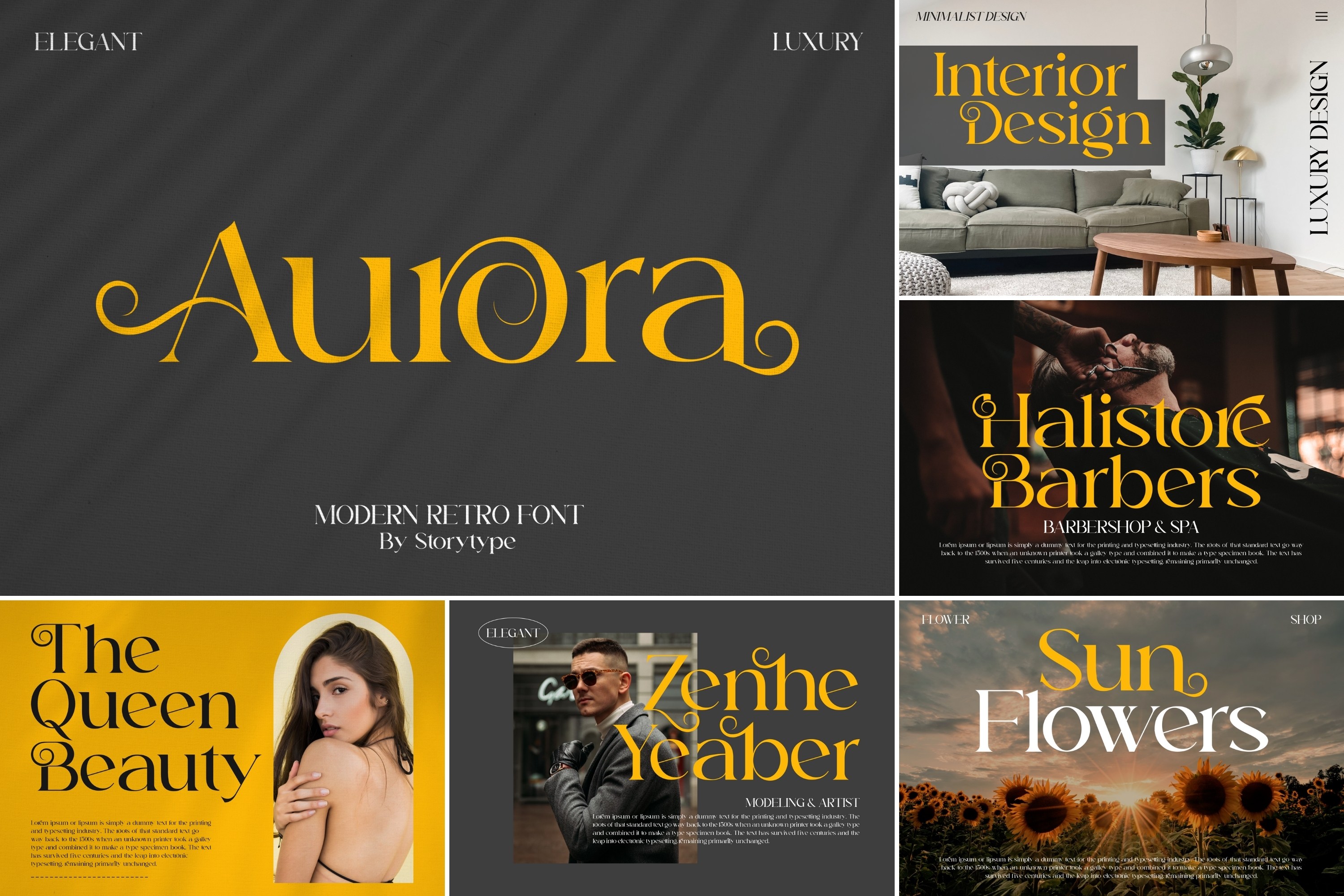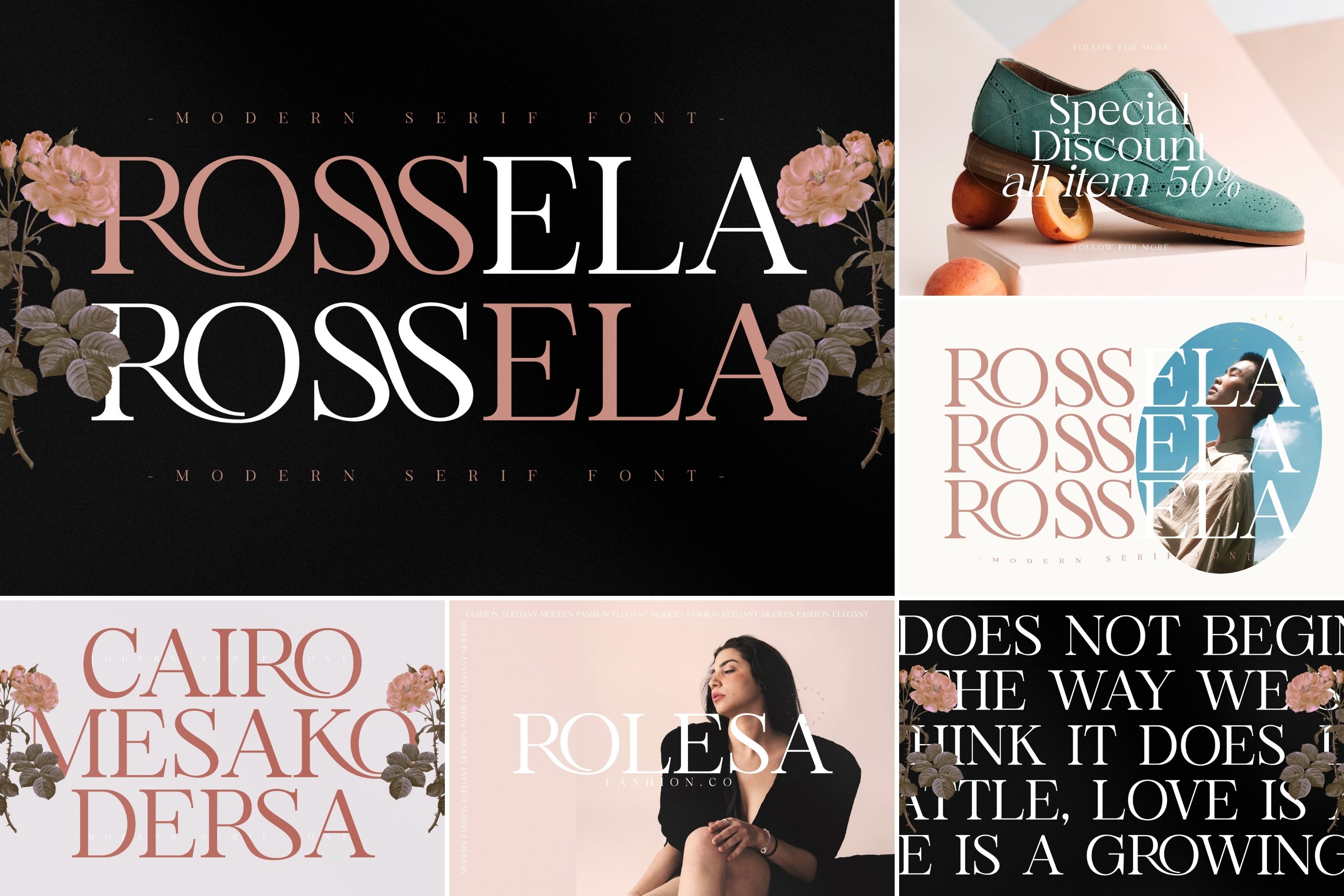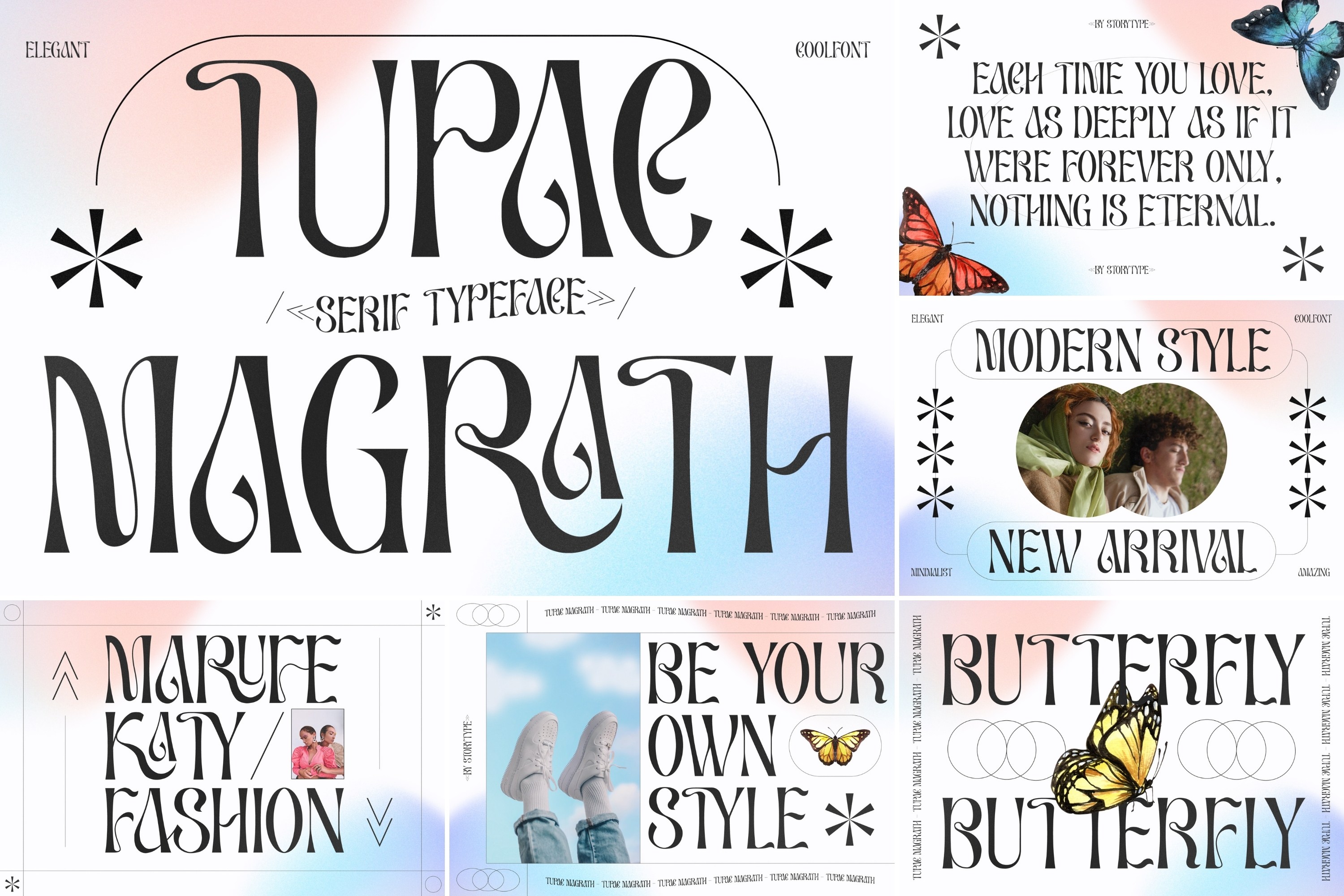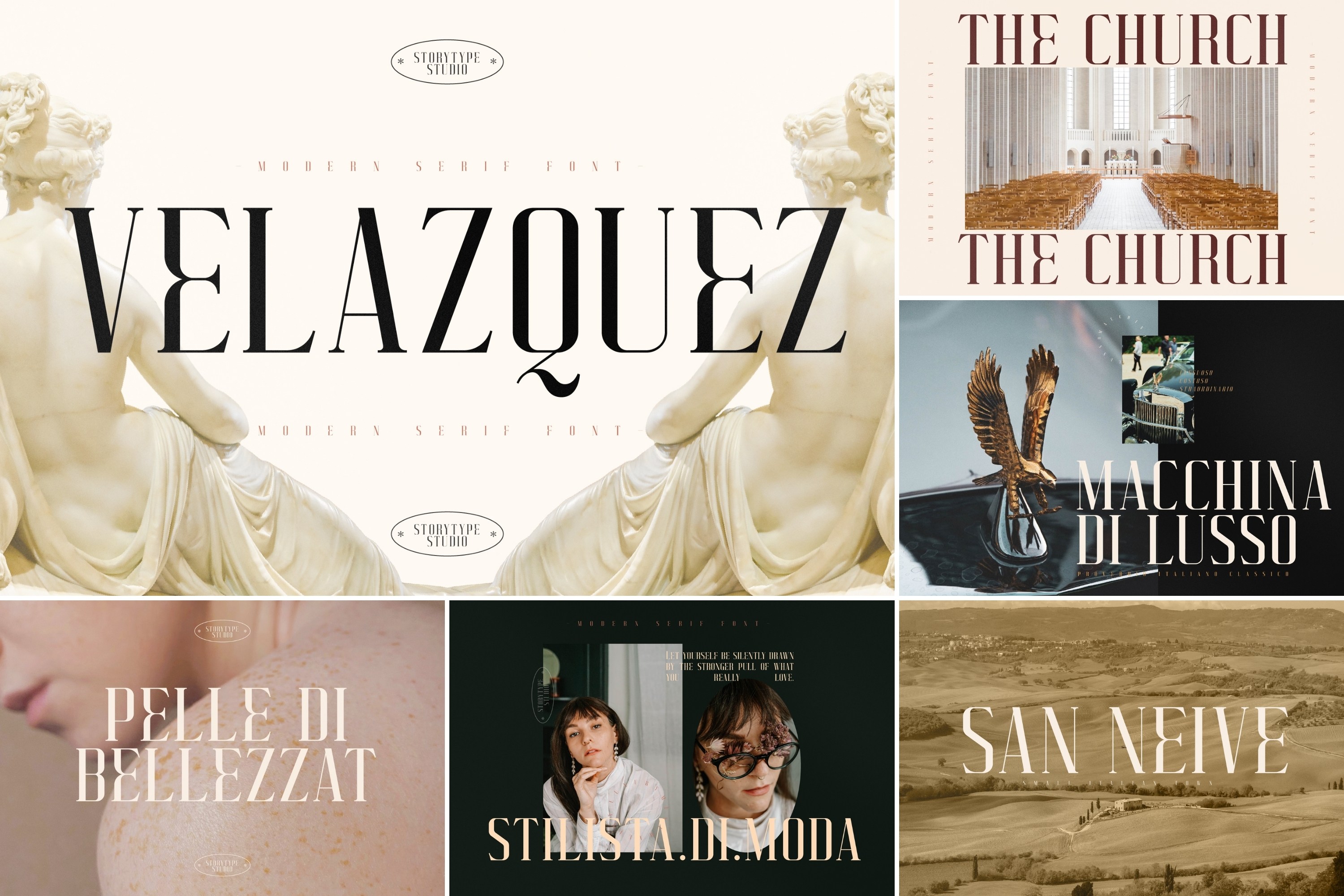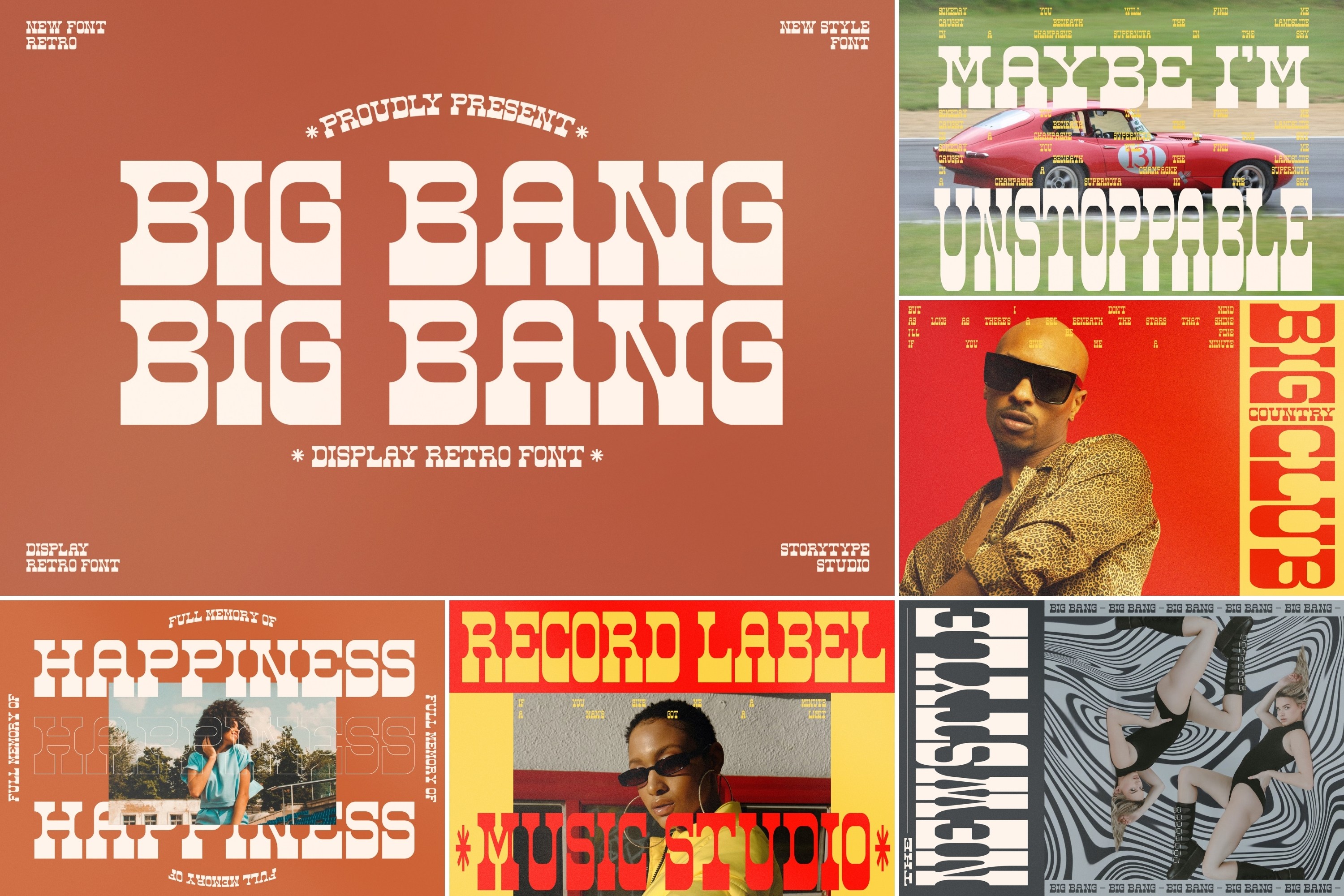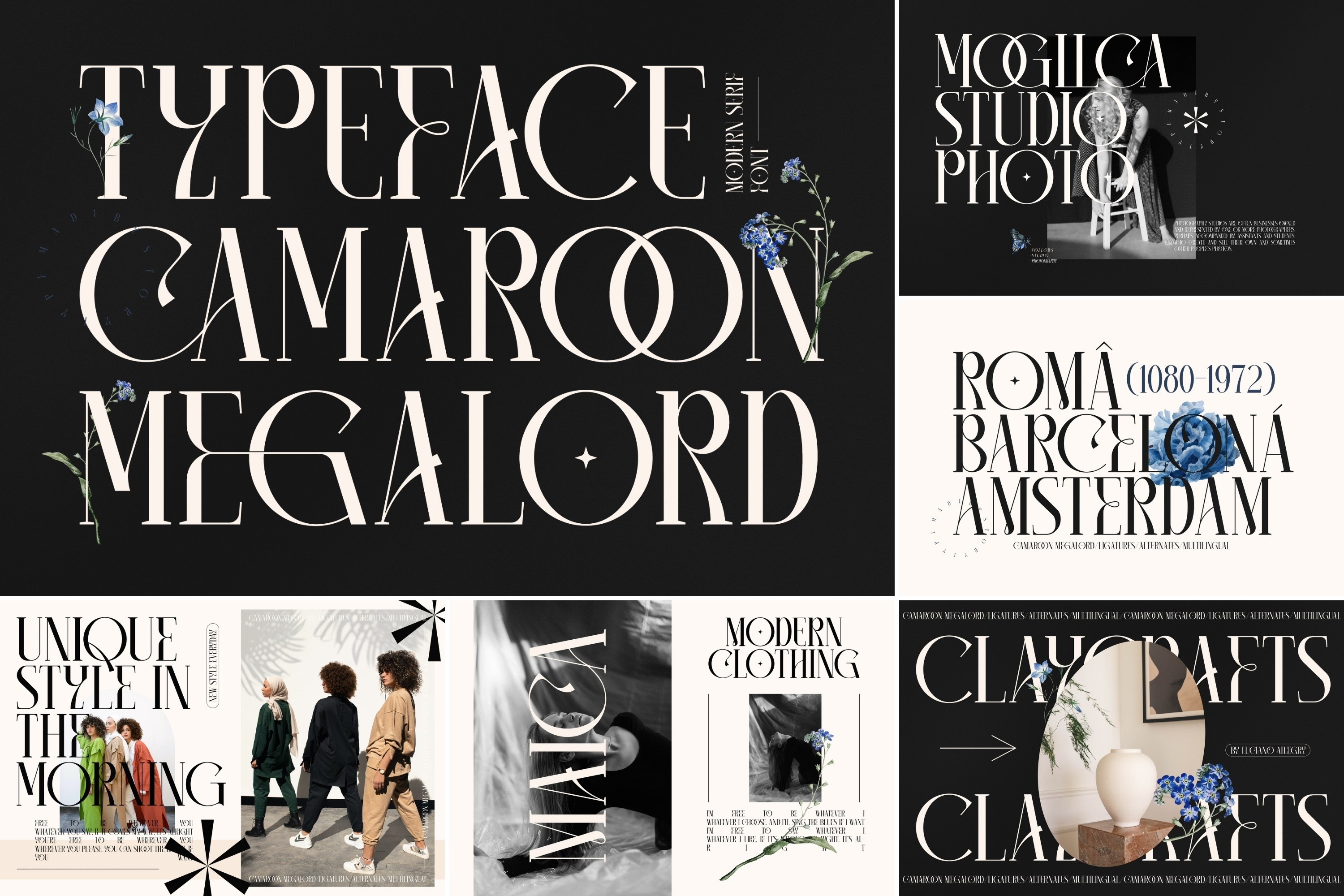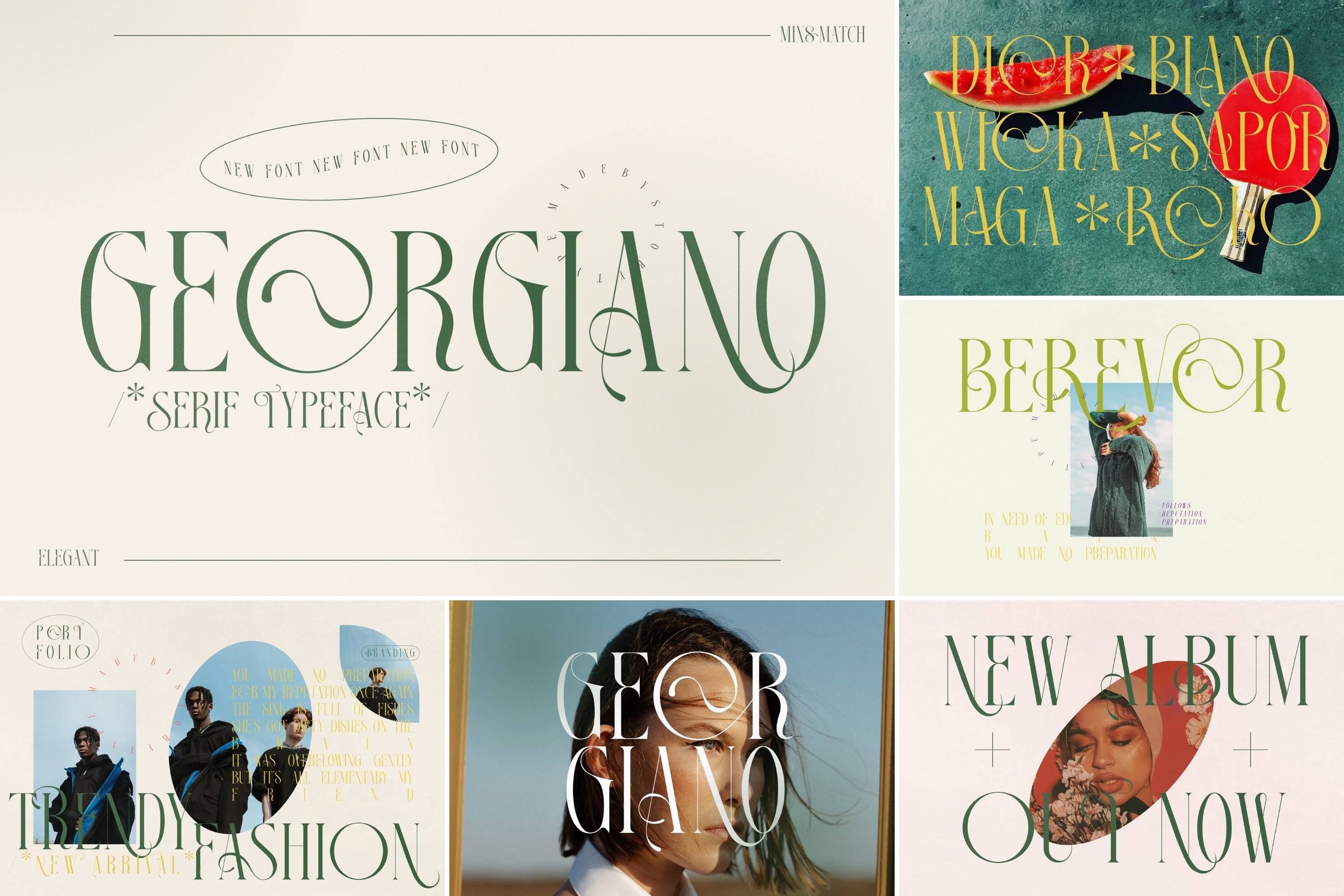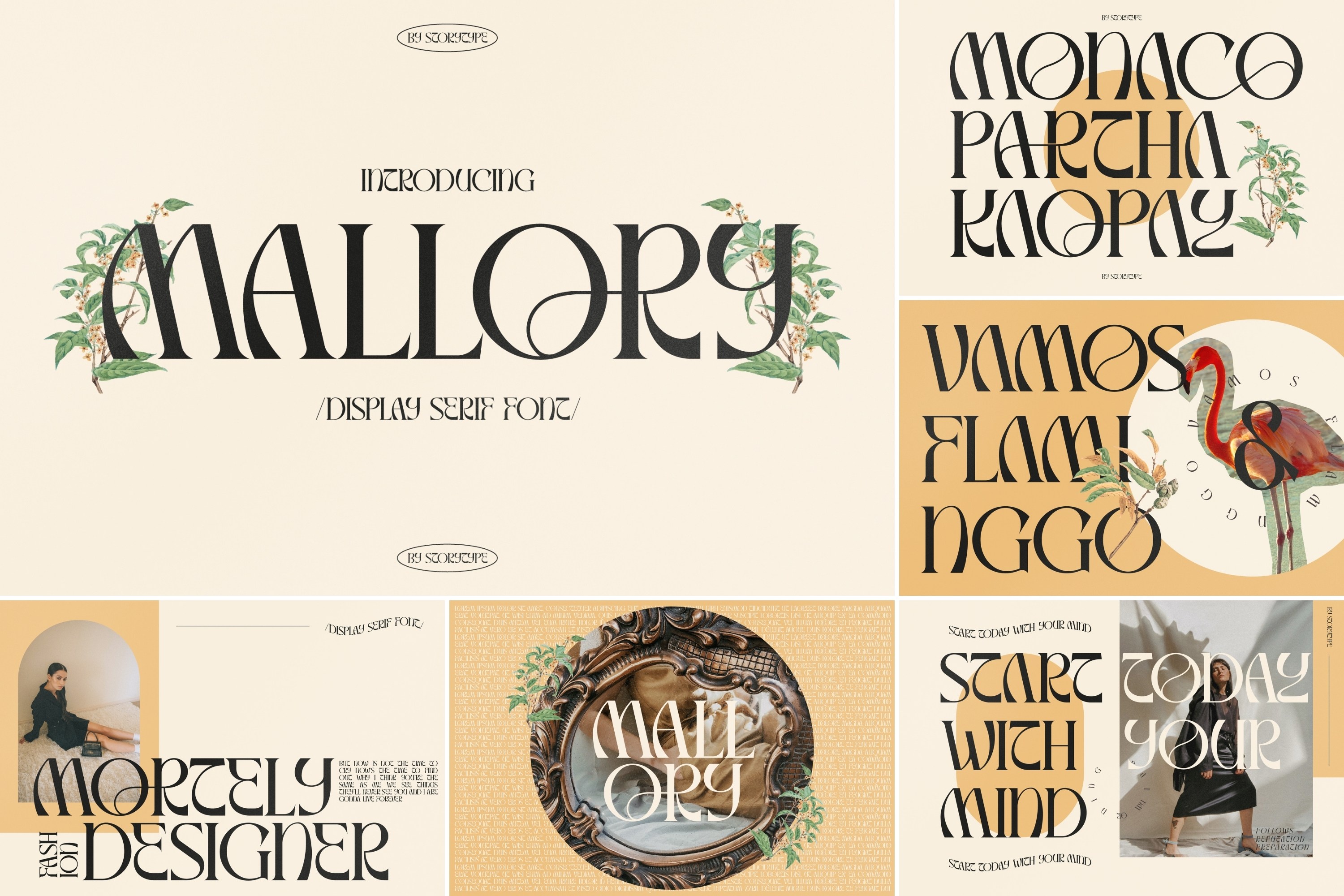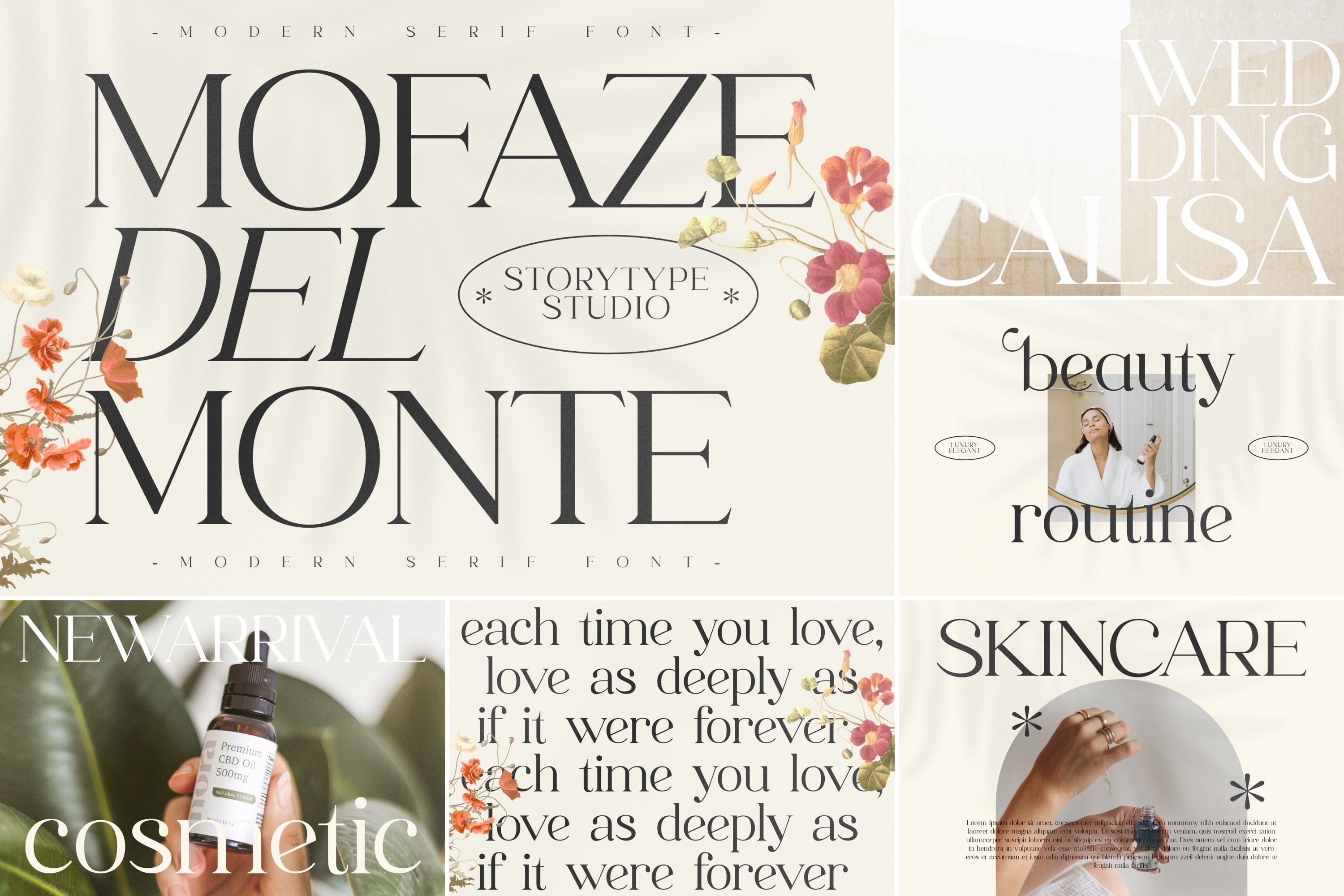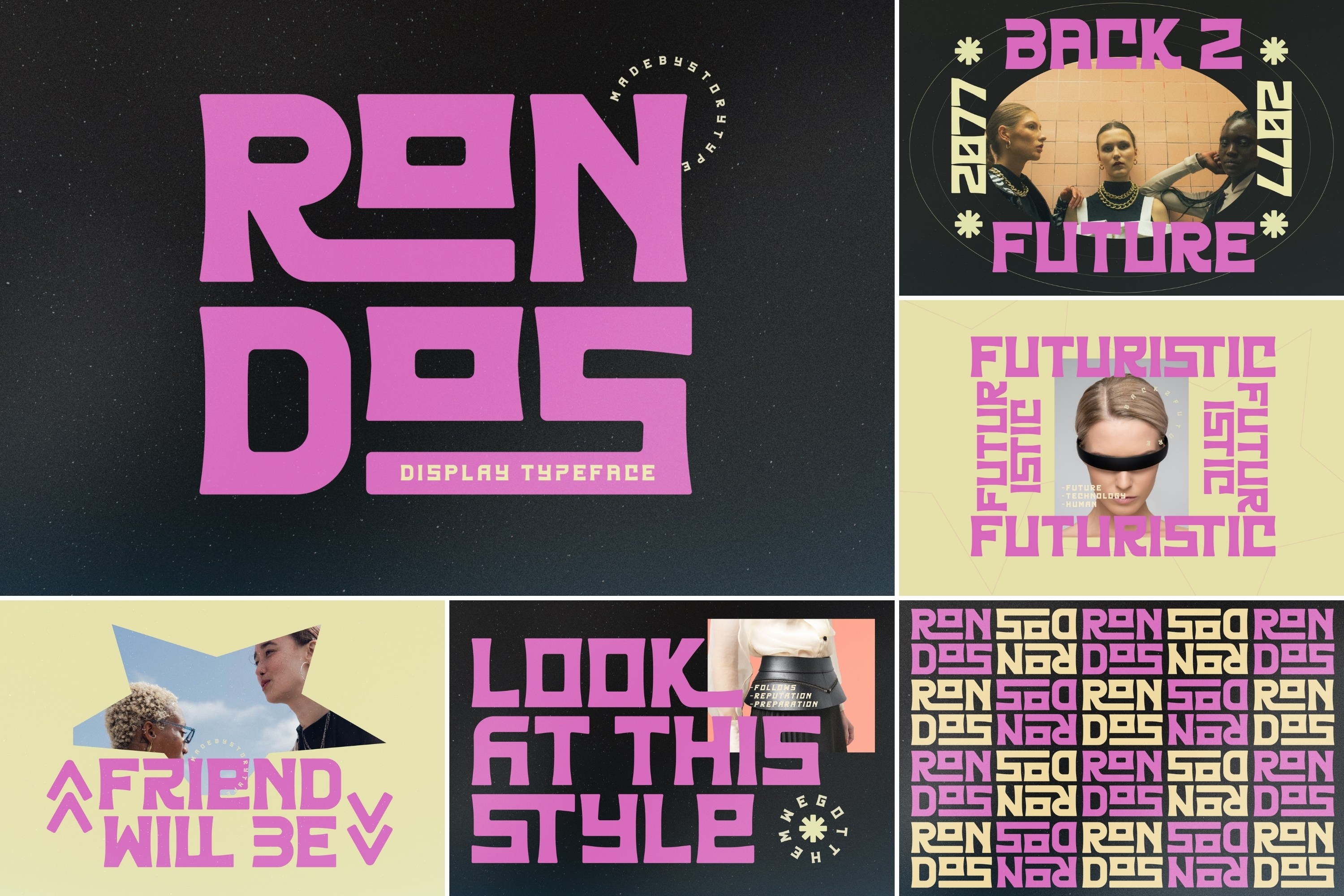
The Modern Display Font Bundle
Make your projects more attractive with this The Modern Display Font Bundle.
This Modern Display Font Bundle is unique and suitable for your collection as your mainstay display font! With a unique curve that makes this bundle look modern and elegant.